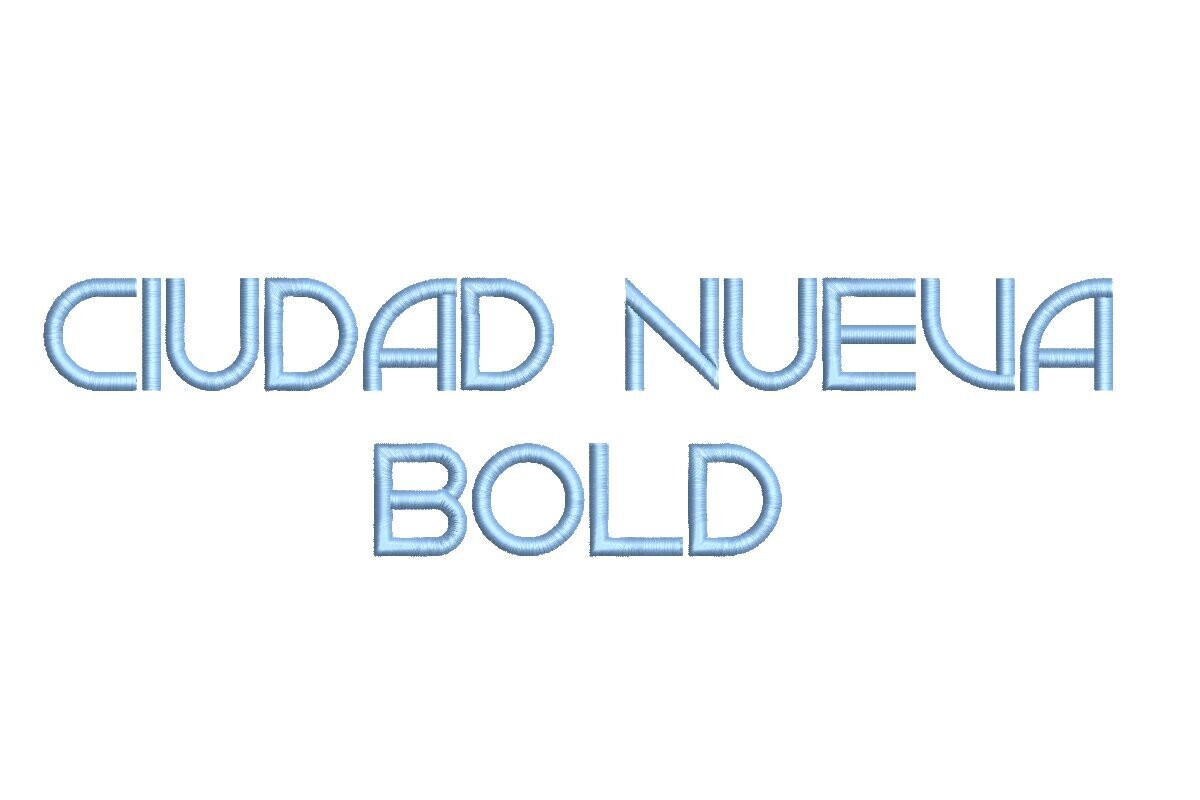
Introducing Ciudad Nueva Bd ESA Font - Your Gateway to Embroidery Excellence! Meticulously crafted to harmonize with Wilcom Studio e4.5.6 and Hatch 3 versions and beyond, this font is your key to professional embroidery projects. Its bold, sophisticated design lends a unique touch to your creations, ensuring they stand out effortlessly. Achieve flawlessly detailed embroidery with this user-friendly digitized font, offering precision and perfection in every stitch. Explore unlimited creative opportunities with Ciudad Nueva Bd ESA Font and elevate your Wilcom Studio and Hatch software to the next level. Don't settle for ordinary, upgrade today to create extraordinary embroidery masterpieces.